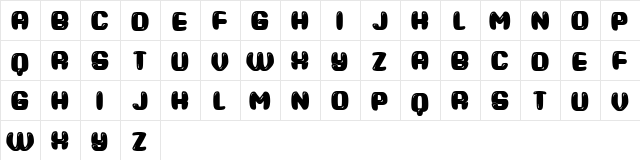
Devianza Book Regular
Design Context for Devianza Book Typeface
Devianza Book is a composed and adaptable typeface that performs quietly and consistently across a wide range of design contexts.